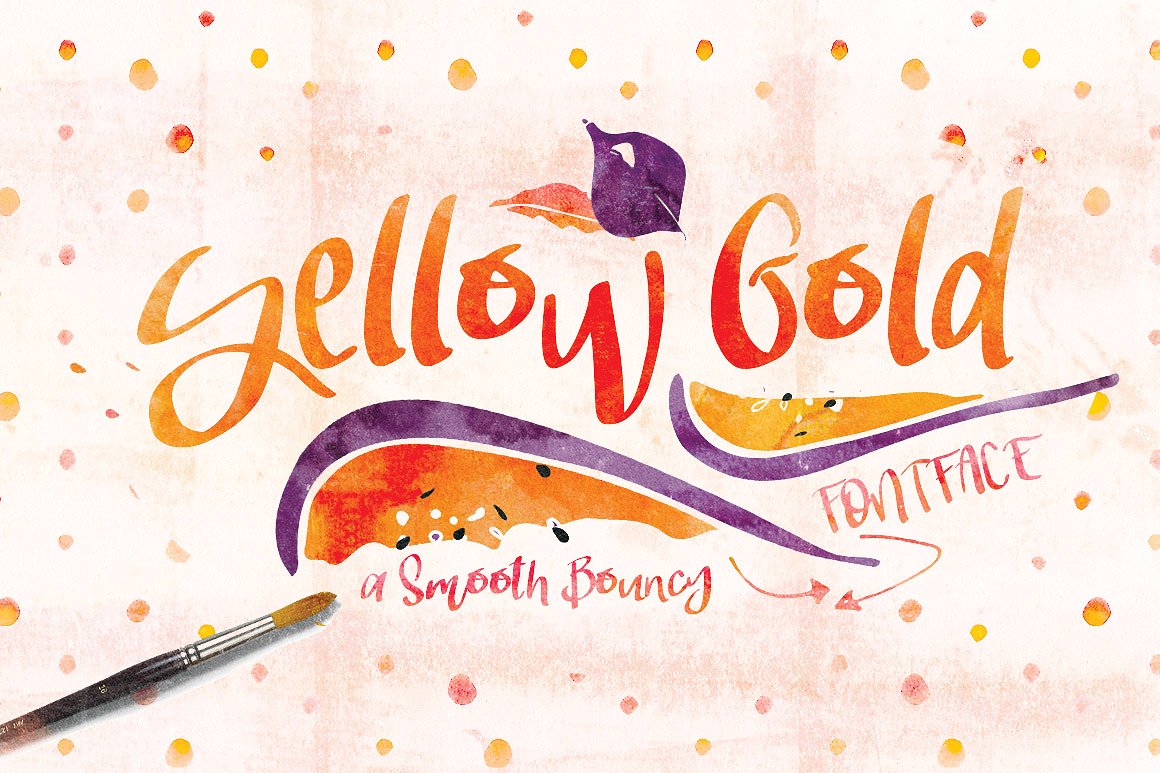
Yellow Gold
Yellow Gold Font Typeface
Please welcome Yellow Gold – a new bouncy semi-script font with loads of happy character. Love the other fonts and graphics used in our previews? Get them all in our new bundle deal in our shop! Enjoy!